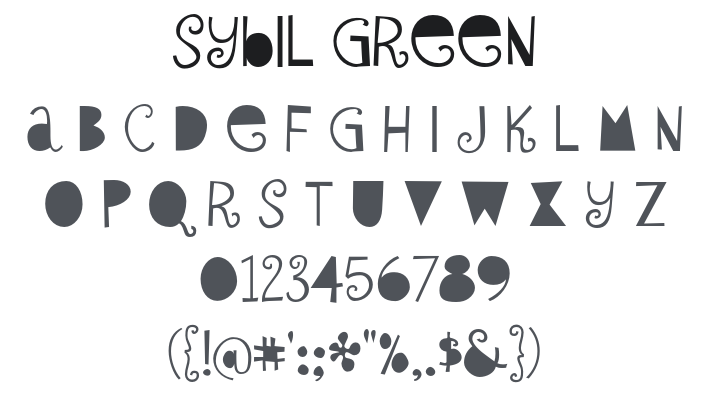
Sybil Green Font
About Sybil Green
Sybil Green is a bold psychedelic display typeface with unique, swirling letterforms and deliberately filled counters — the holes inside letters are plugged, giving each character a dense, hallucinogenic quality that pulses with 1960s counterculture energy. Its vibrant, looping personality is impossible to ignore. Perfect for festival posters, psychedelic branding, retro music graphics, groovy merchandise, and any design needing a vivid, mind-expanding visual explosion.